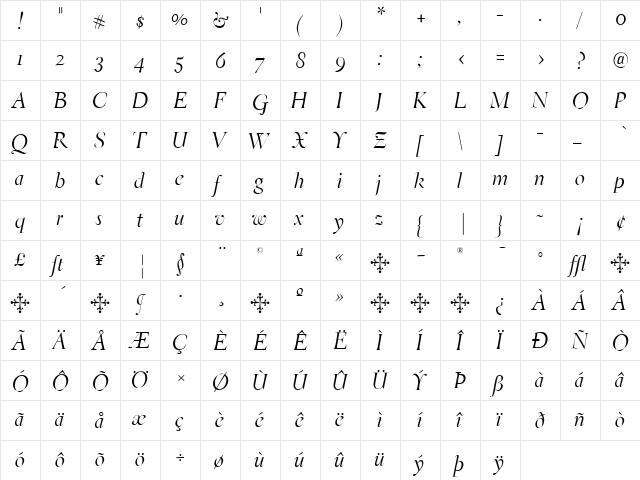
EldoradoDisplay Italic
| Foundry | The Font Bureau, Inc |
EldoradoDisplay is built around its visual character rather than neutral utility — its distinctive forms are designed to make an impression at display sizes. The slanted form adds forward momentum and visual energy.